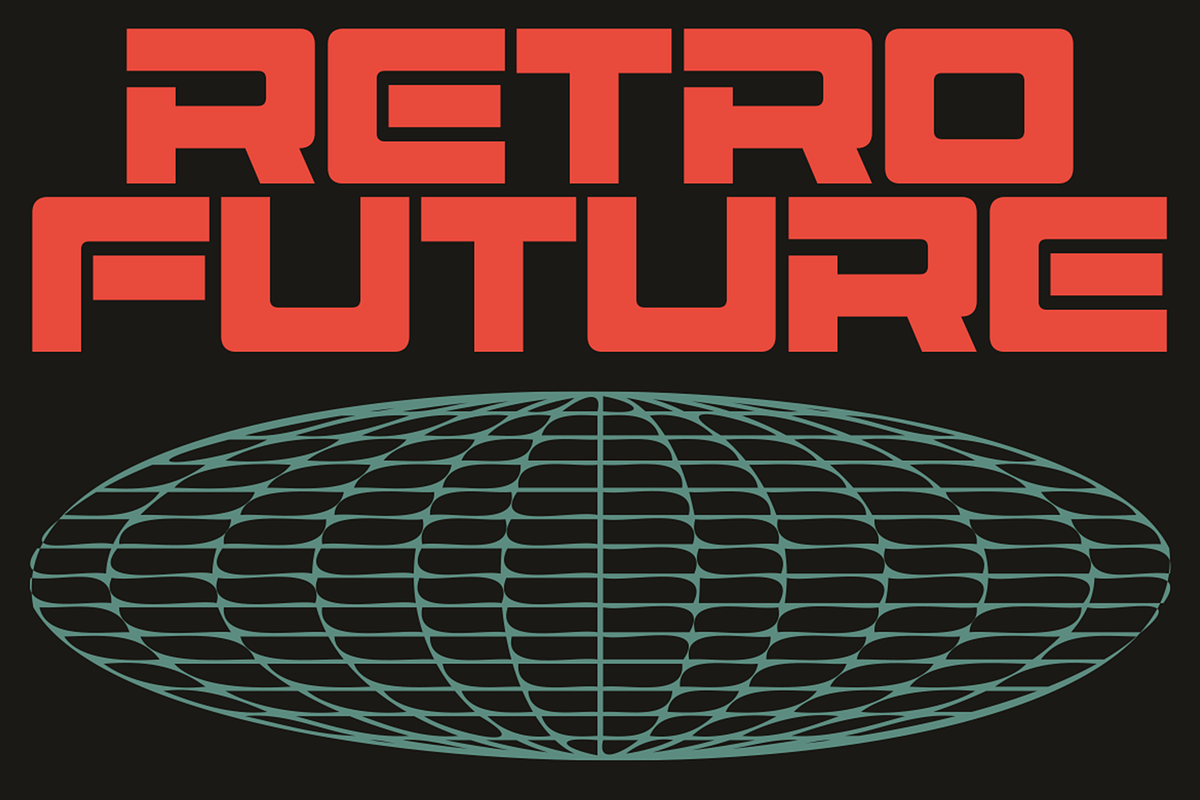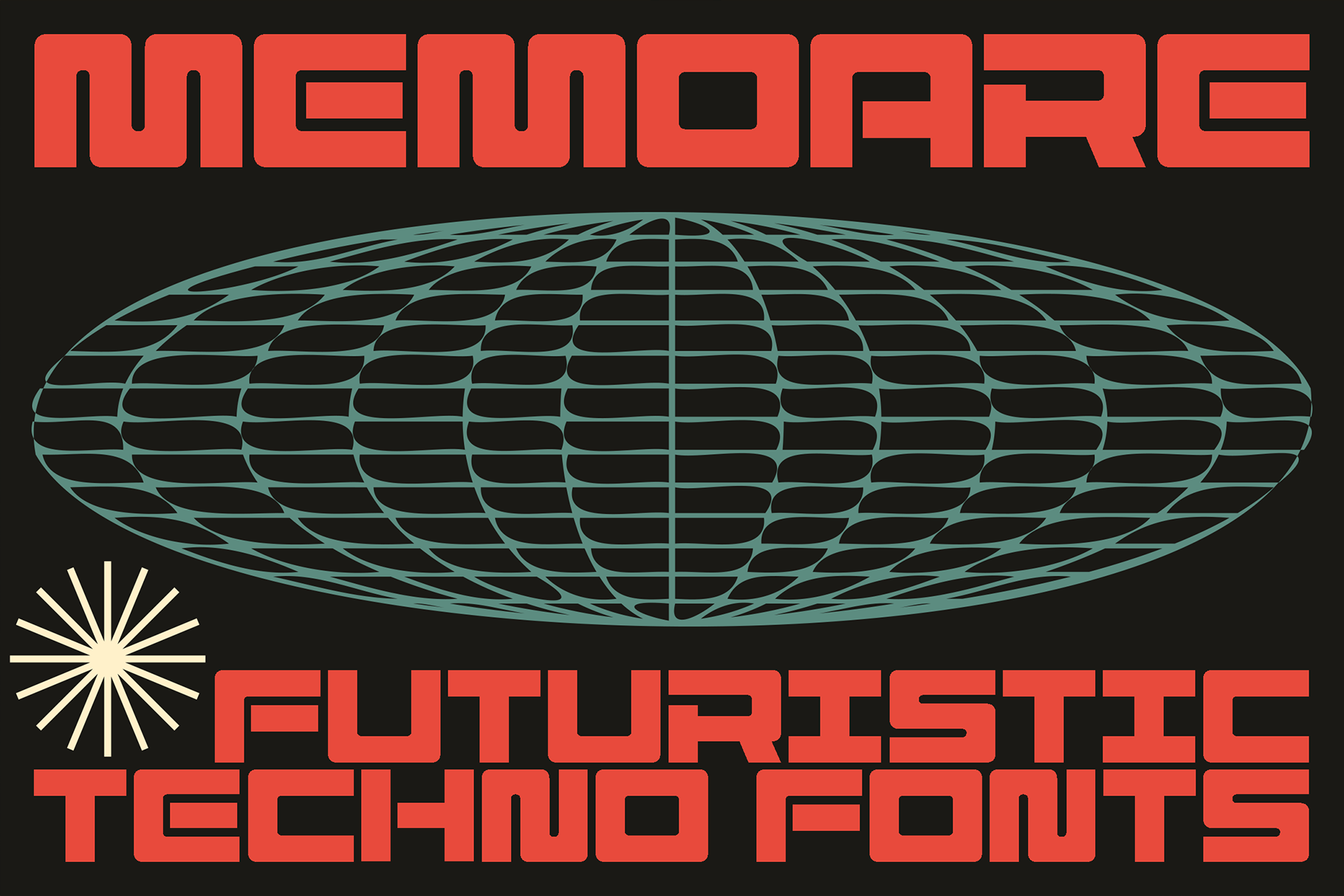
Memoare - Bold Futuristic Fonts
Step into a timeline where the past and the future collide.
Introducing Memoare, a futuristic font designed for visual impact. Forged with a monolithic, expanded body style and razor-sharp geometric precision, Memoare captures the essence of 90s retro-futurism while injecting the clean, high-tech energy of modern techno visuals.
It is a typographic anomaly—a perfect blend of the "past, now, and future." Whether you are designing the next viral esports logo, creating high-octane gaming assets, or building a branding identity that demands authority, Memoare delivers an aesthetic that feels both nostalgic and distinctly ahead of its time.
Its heavy weight and wide stance make it the ultimate display font for grabbing attention in crowded digital spaces. From toy packaging to music festival posters, Memoare provides the structural dominance your layout needs.
Esports & Gaming: Clan logos, stream overlays, and tournament assets.
Branding & Identity: Tech startups, streetwear labels, and automotive industries.
Event Visuals: Techno gigs, digital conferences, and rave posters.